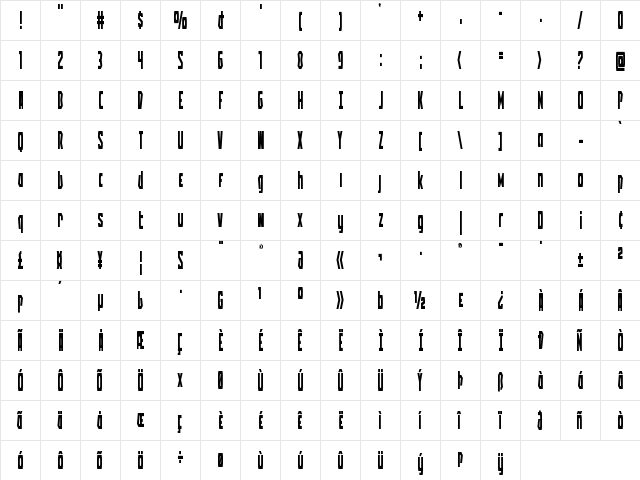
Battleworld Condensed
Design Context for Battleworld Condensed Typeface
Battleworld Condensed offers clean, dependable letterforms without strong stylistic allegiance, making it a practical choice for designers who need flexibility. The condensed width makes it efficient for tight spaces without sacrificing legibility.